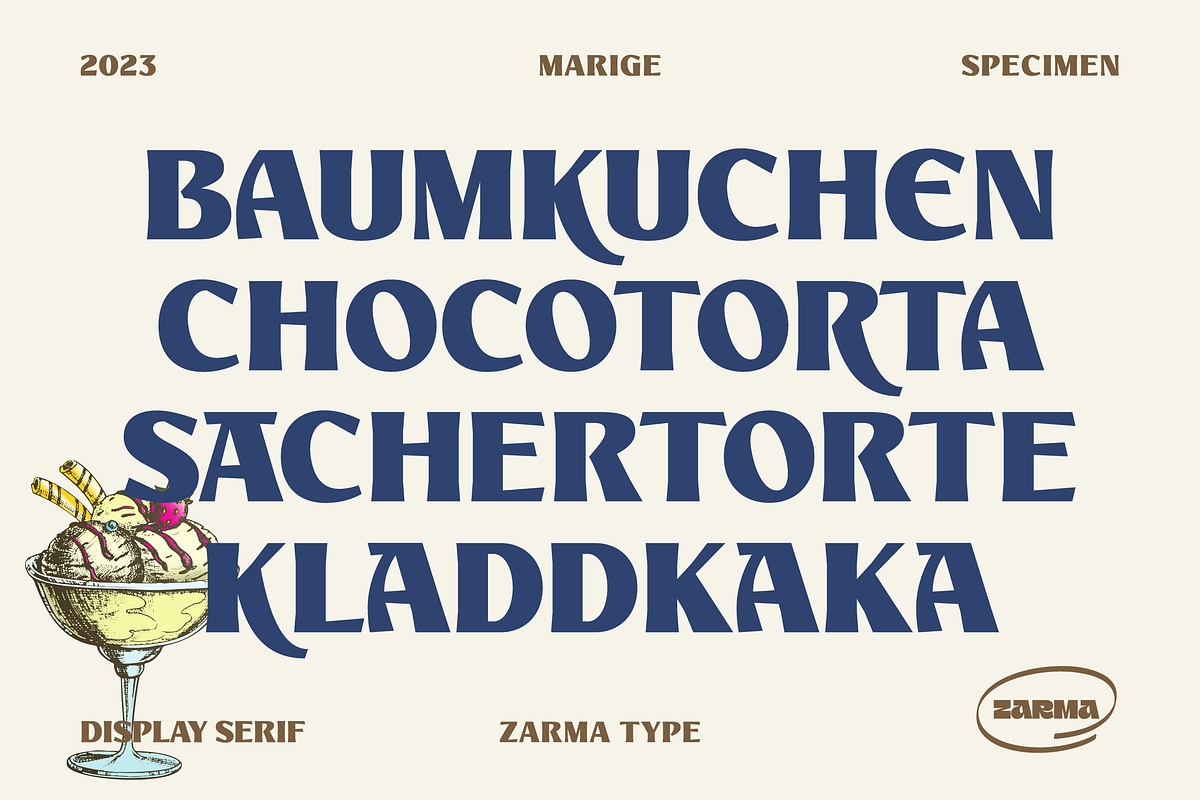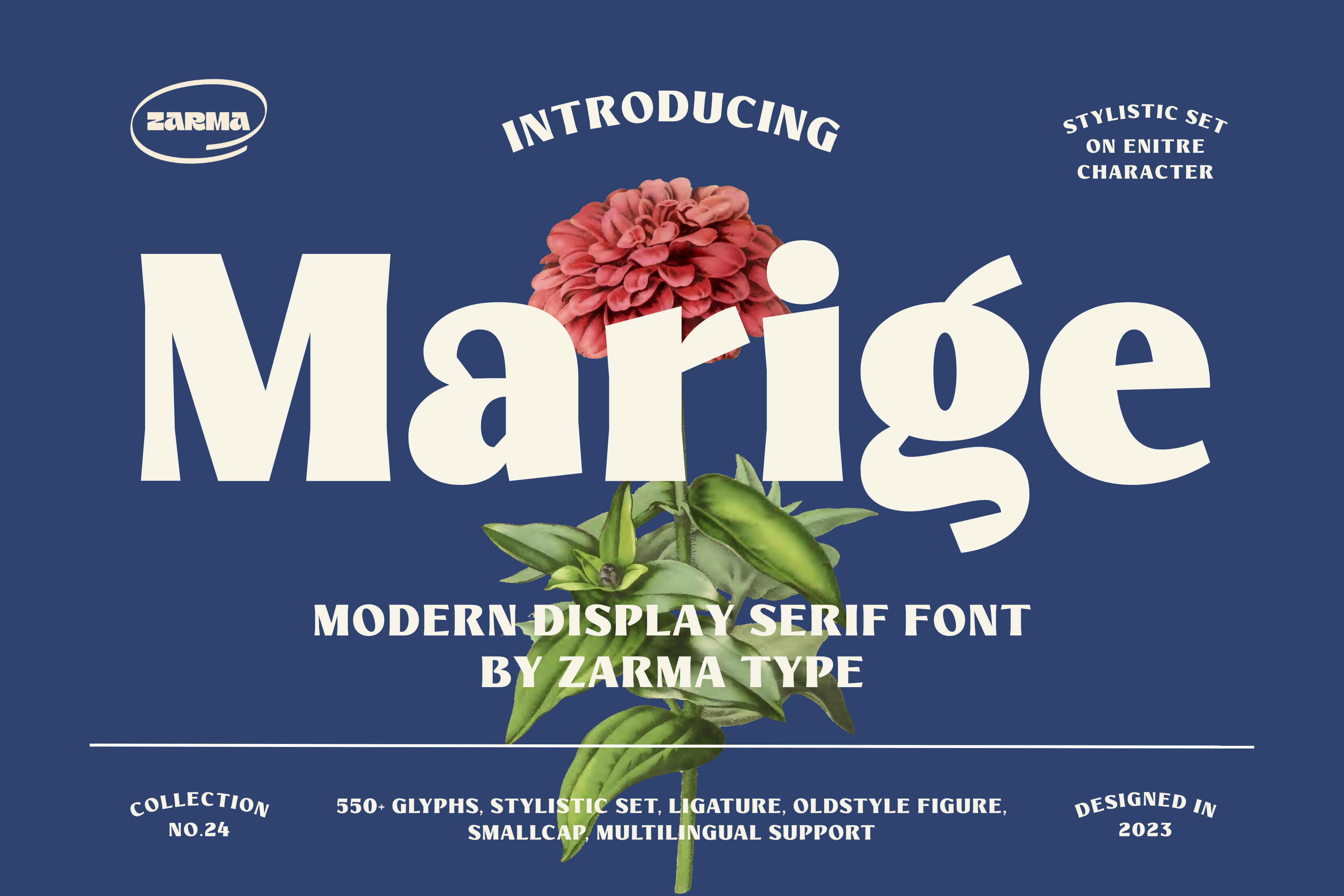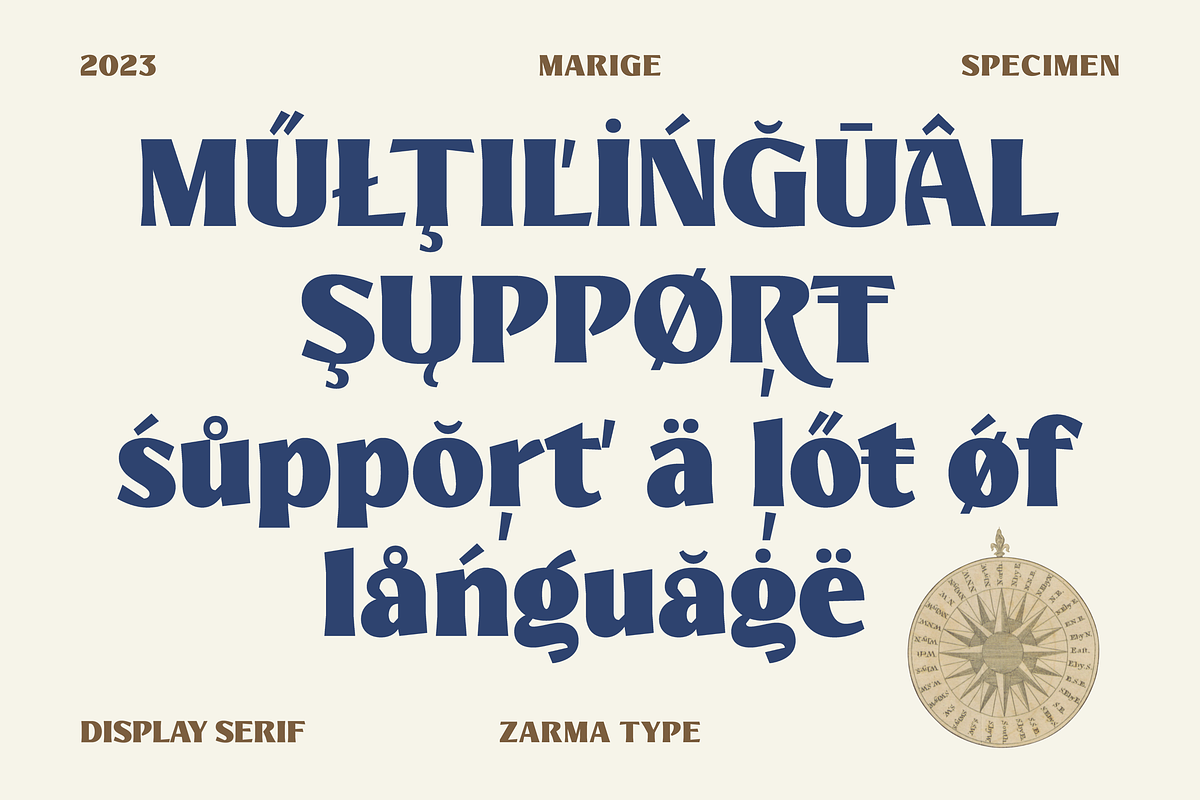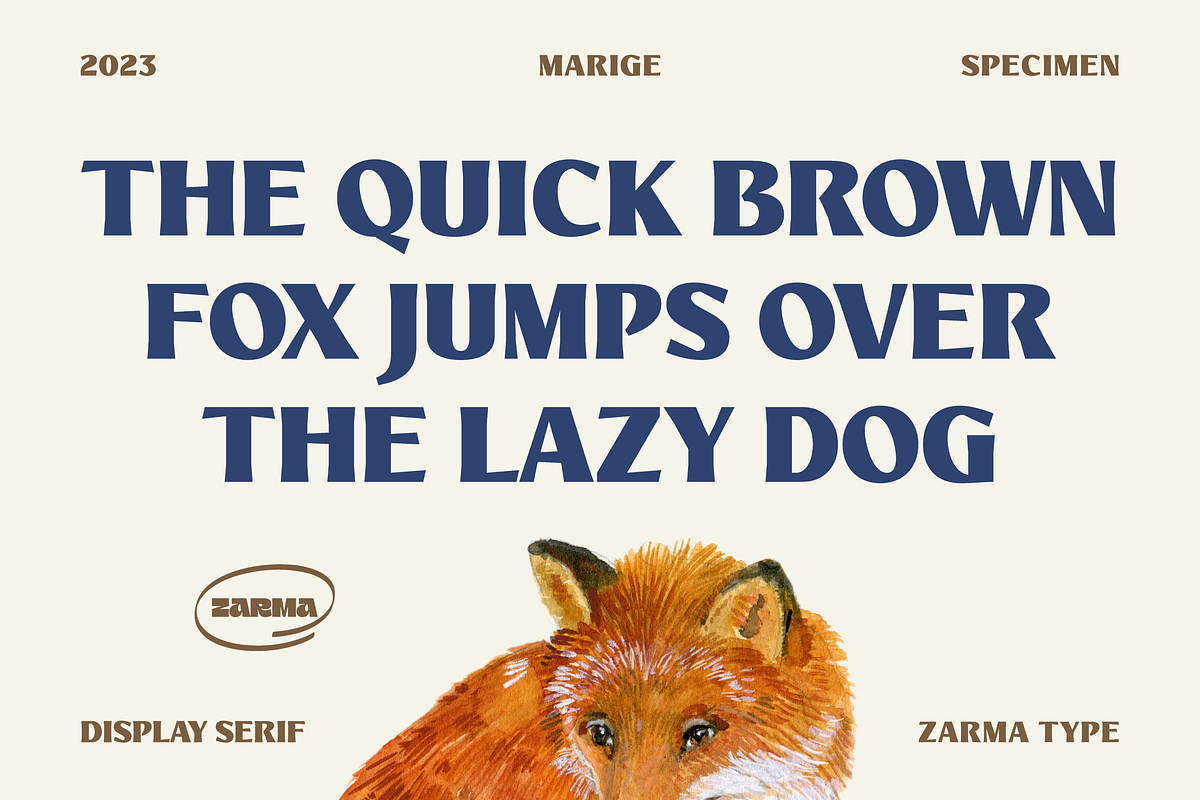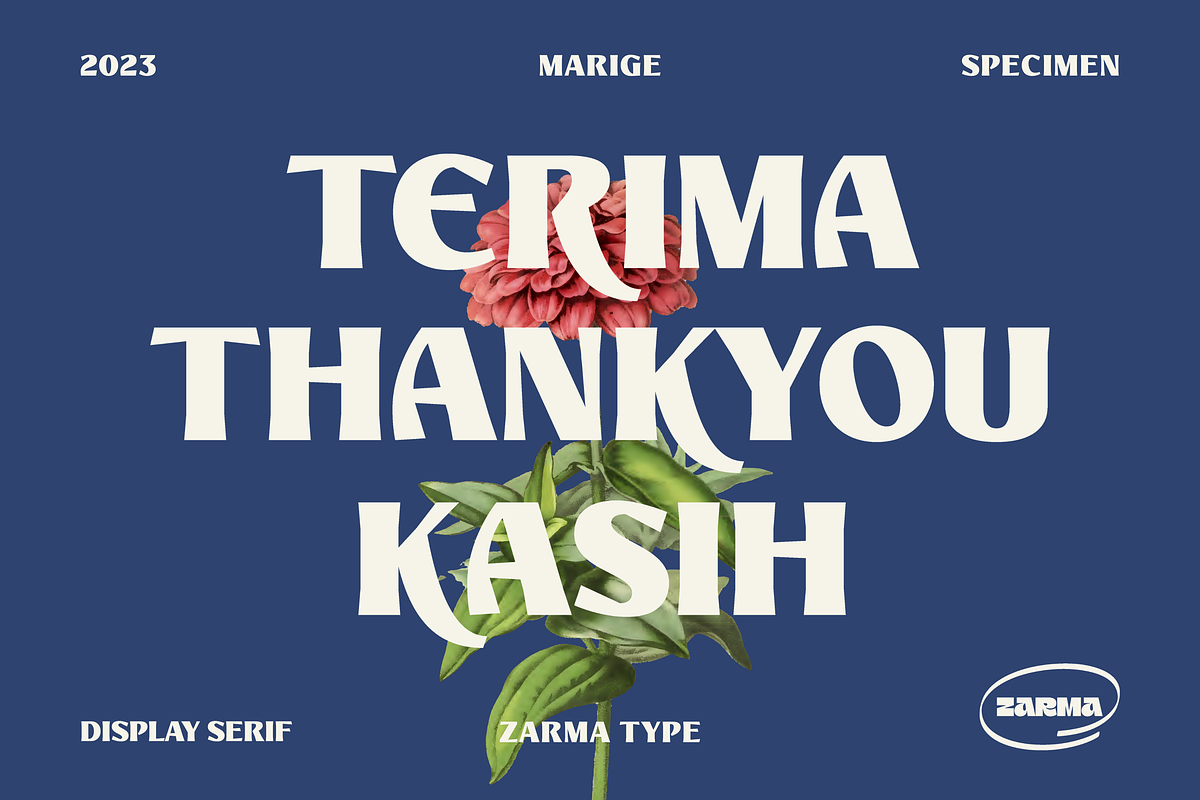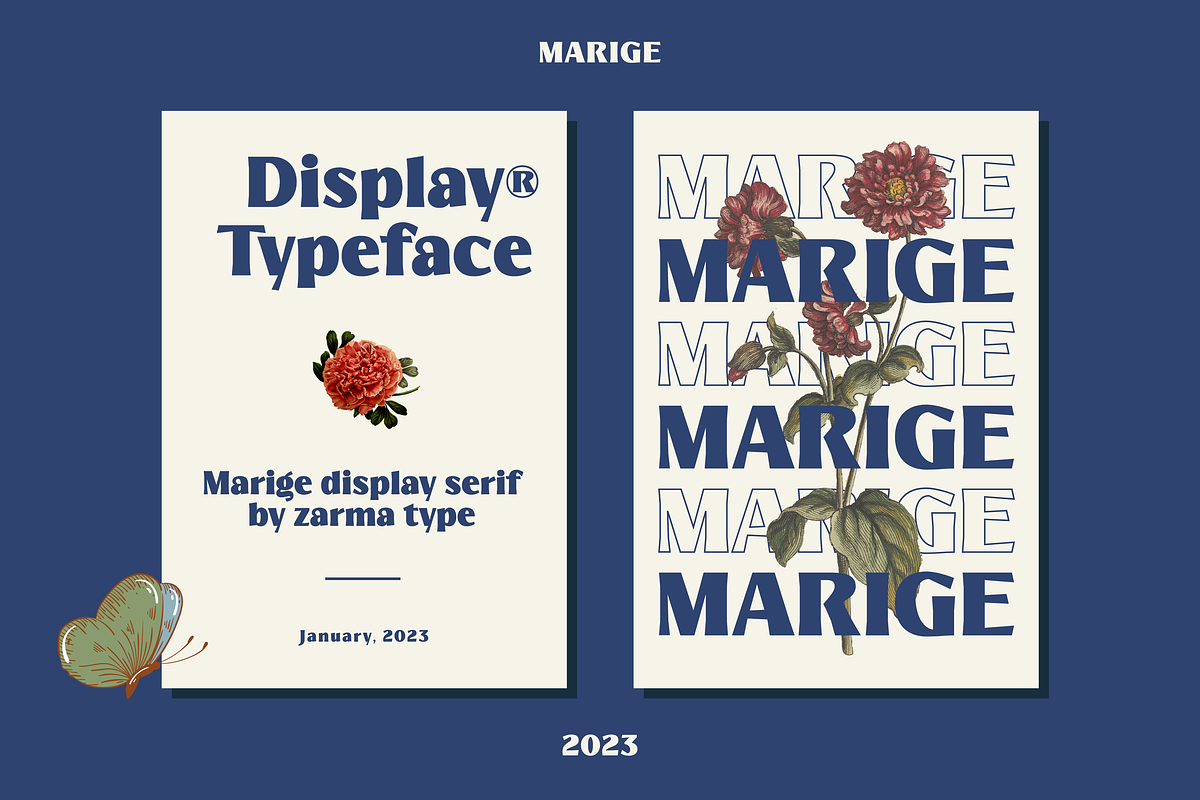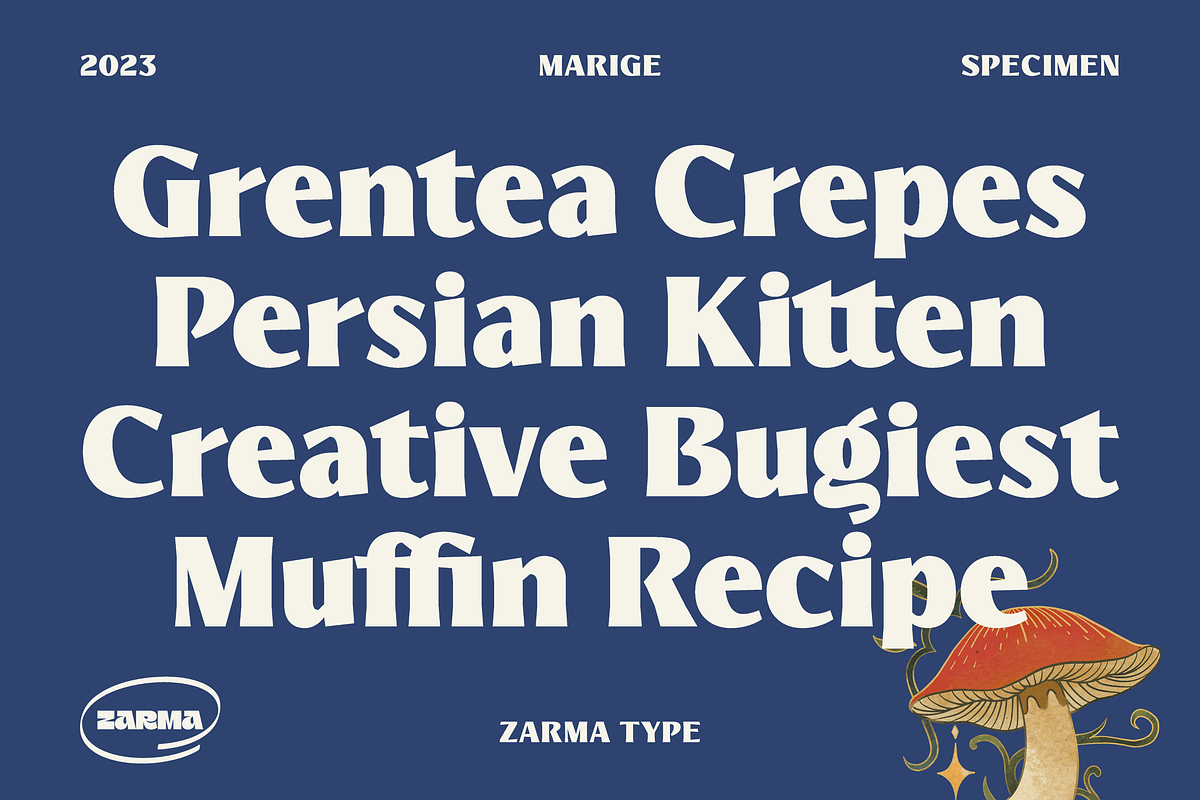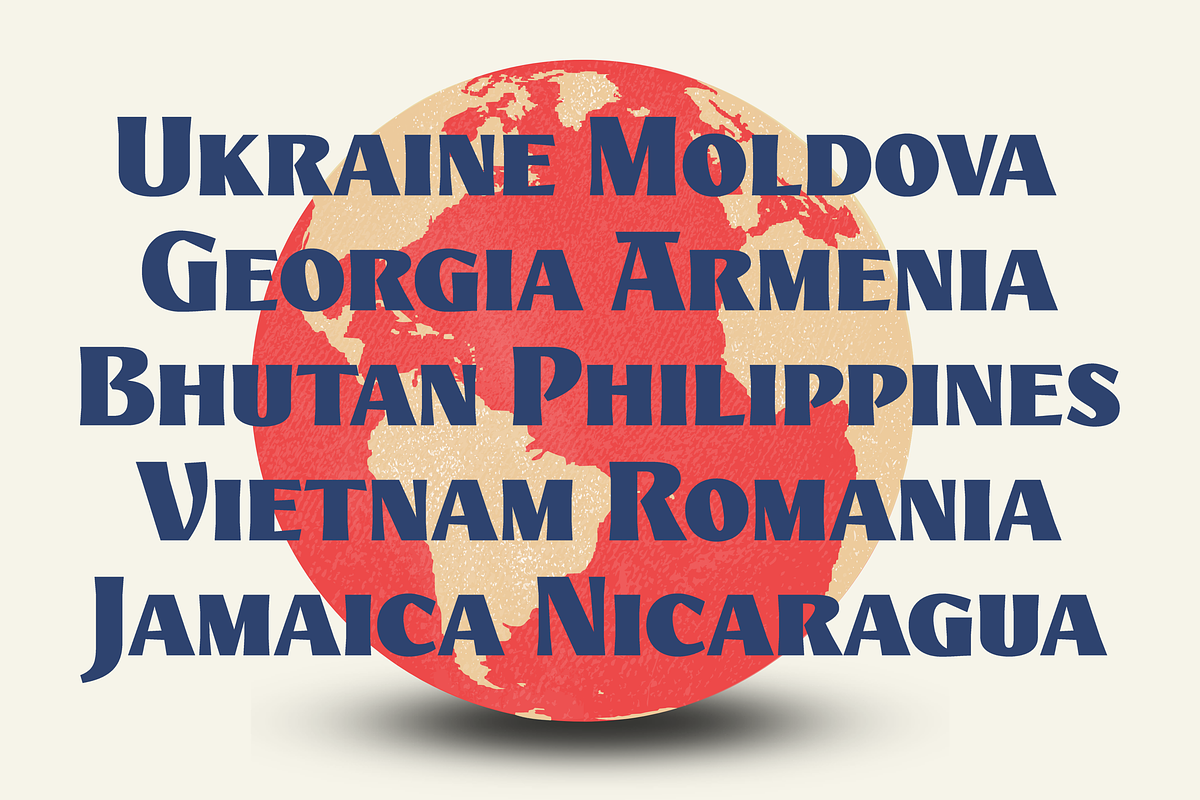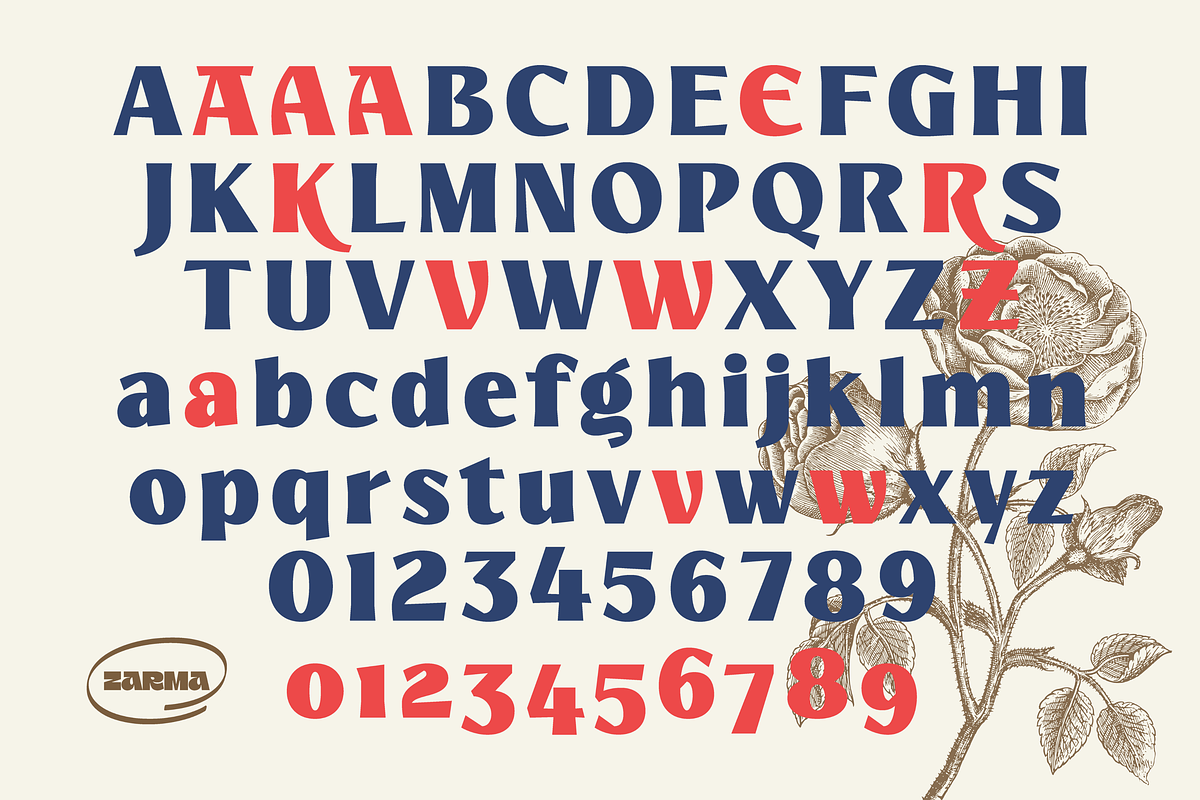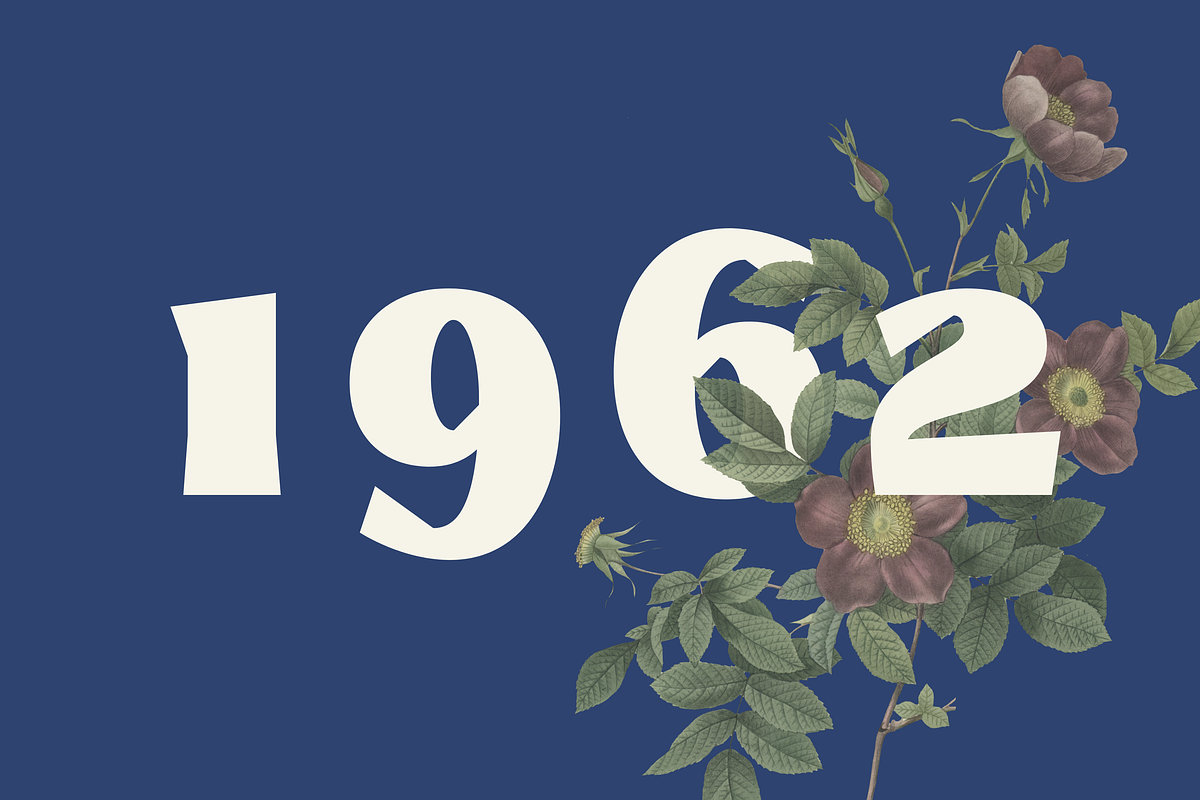
Marige - Modern Display Serif Font
Introducing Marige, a bold, high contrast typeface that stands out and exudes strength and confidence. Marige has 550+ glyphs, including advanced open type features like stylistic set, standard ligature, discretionary ligature, oldstyle figure, and smallcap. Ideal for any aspect of design, such as logos, headlines, posters, and so on, and will give your projects a classic yet contemporary look.